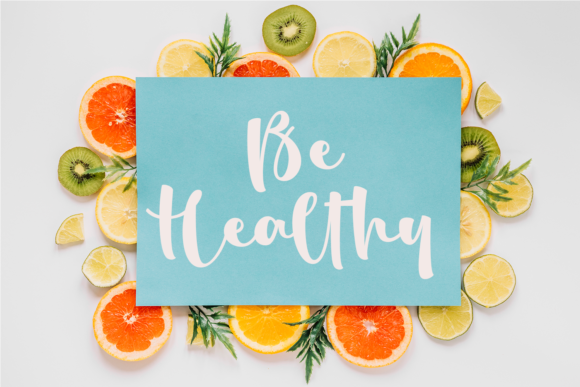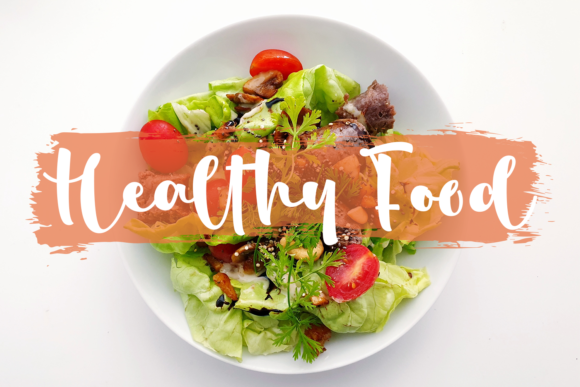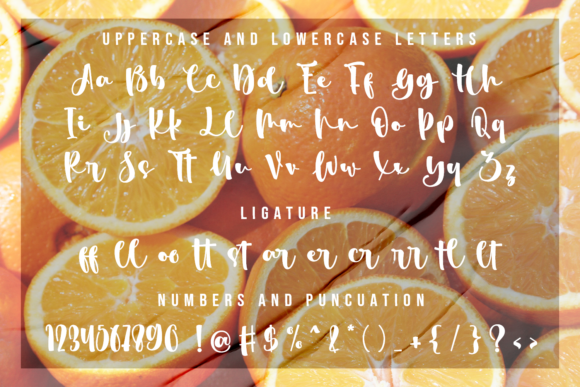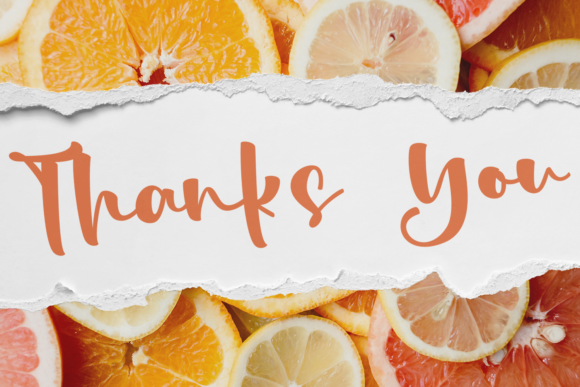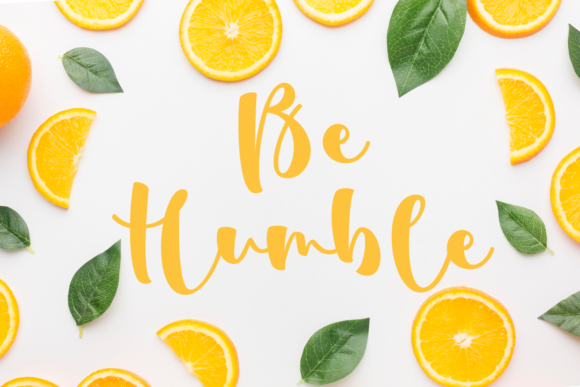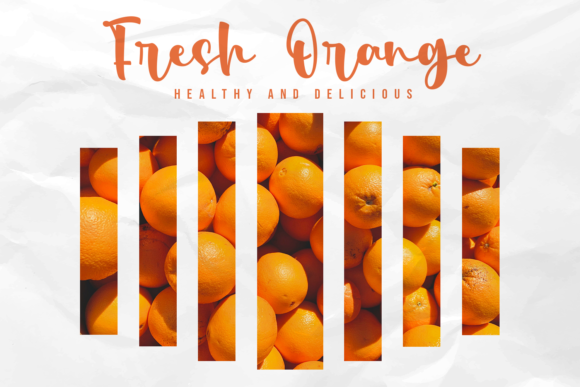
Fresh Orange Font
About Fresh Orange Font
Fresh Orange is a contemporary and stylish handwritten font that has been meticulously designed to deliver exceptional outcomes. Its careful crafting ensures that every letter, curve, and stroke exudes a sense of modernity and sophistication. This font is a perfect blend of elegance and class, making it an ideal choice for enhancing a wide range of design projects.
Whether you’re working on branding materials, social media graphics, website headers, or any other creative endeavor, Fresh Orange possesses the versatility to elevate your work to new heights. Its clean and refined aesthetic adds a touch of professionalism while maintaining a trendy and youthful vibe.
The font’s unique character design and balanced proportions create a harmonious and visually pleasing appearance. Each letter flows seamlessly into the next, resulting in a smooth and cohesive text that catches the eye and engages the viewer. The subtle details and stylistic elements within the font showcase its attention to detail and dedication to quality.
One of the standout features of Fresh Orange is its ability to adapt to various design contexts. Whether you’re aiming for a minimalist and clean look or a bold and vibrant style, this font can effortlessly complement your vision. Its versatility makes it suitable for a wide range of industries, from fashion and beauty to lifestyle and beyond.
With Fresh Orange, you have the freedom to explore its extensive range of glyphs and alternate characters, allowing you to customize and personalize your designs. This font’s PUA encoding ensures easy access to these additional elements, empowering you to create unique and eye-catching compositions.
Incorporating Fresh Orange into your projects will undoubtedly infuse them with a sense of freshness and modern flair. Its chic and contemporary vibe adds a touch of allure to any design, making it an excellent choice for capturing the attention of your target audience.
To sum up, Fresh Orange isn’t just a font – it’s a design tool that brings elegance and class to your creative projects. Its trendy yet timeless appeal makes it a valuable asset in your toolkit, enabling you to achieve exceptional results and leave a lasting impression with your audience.